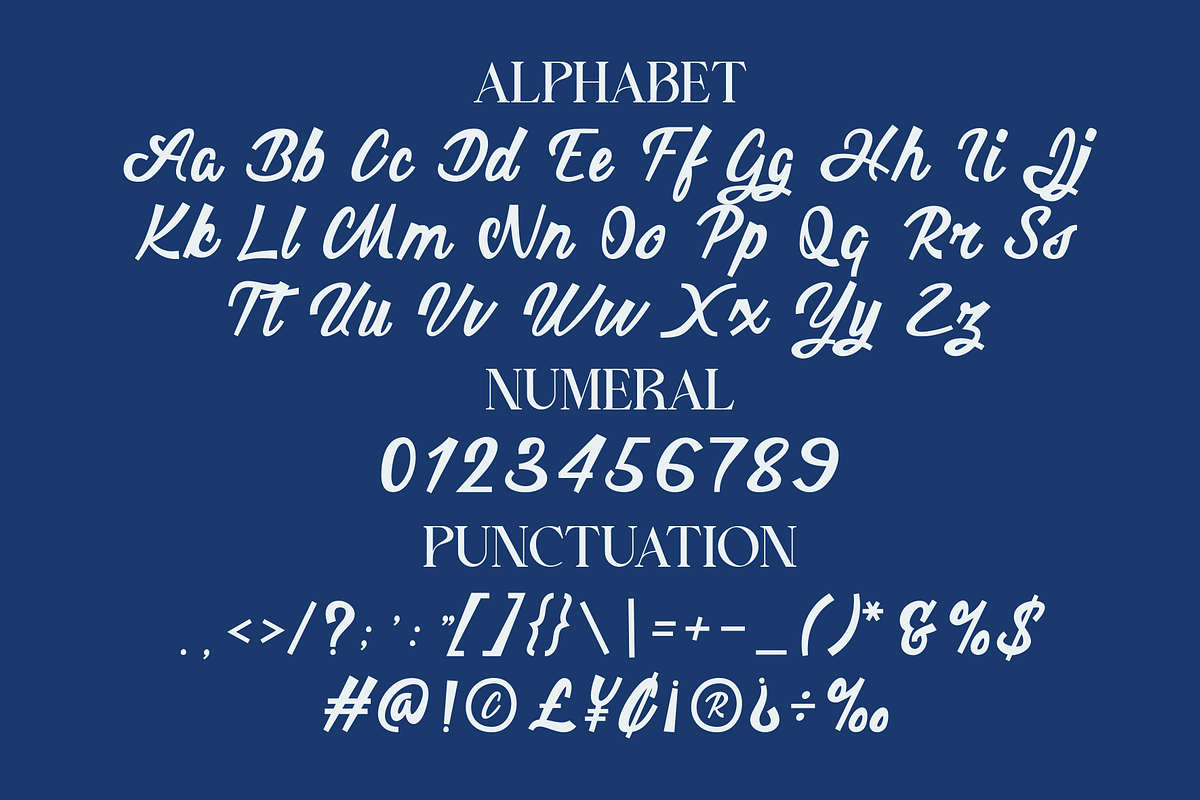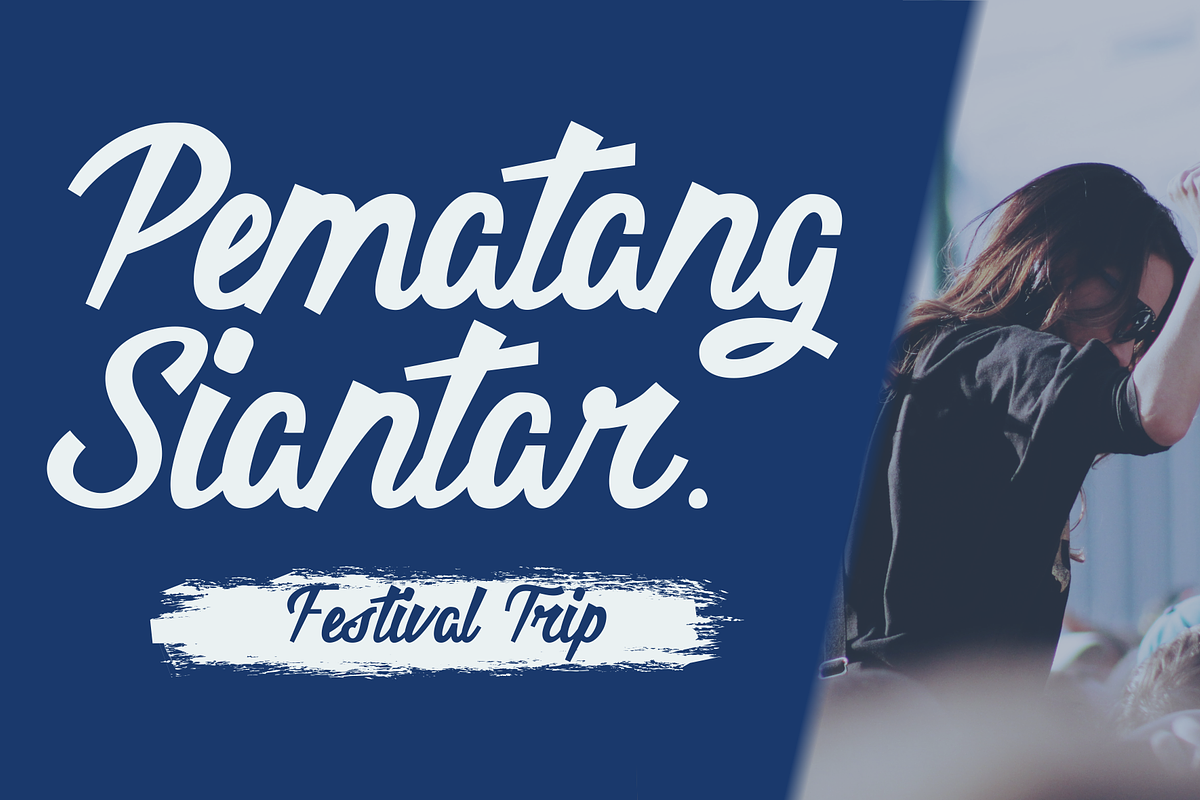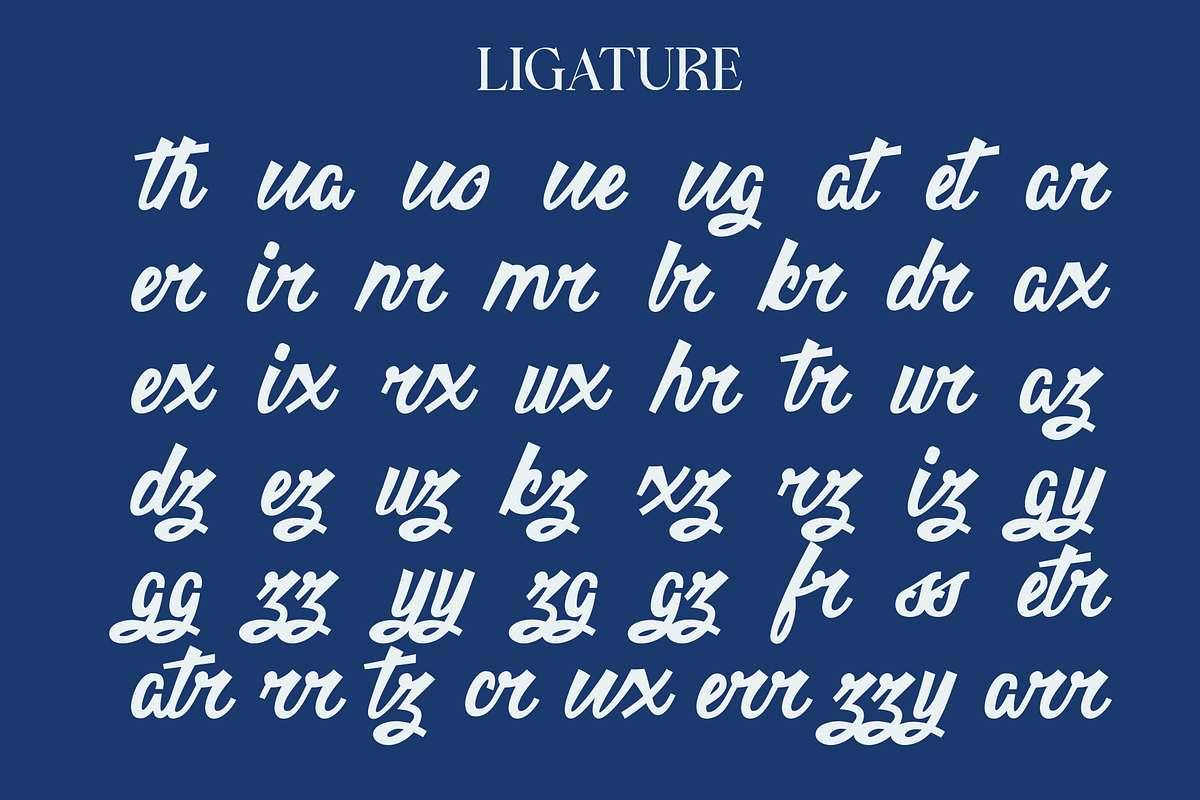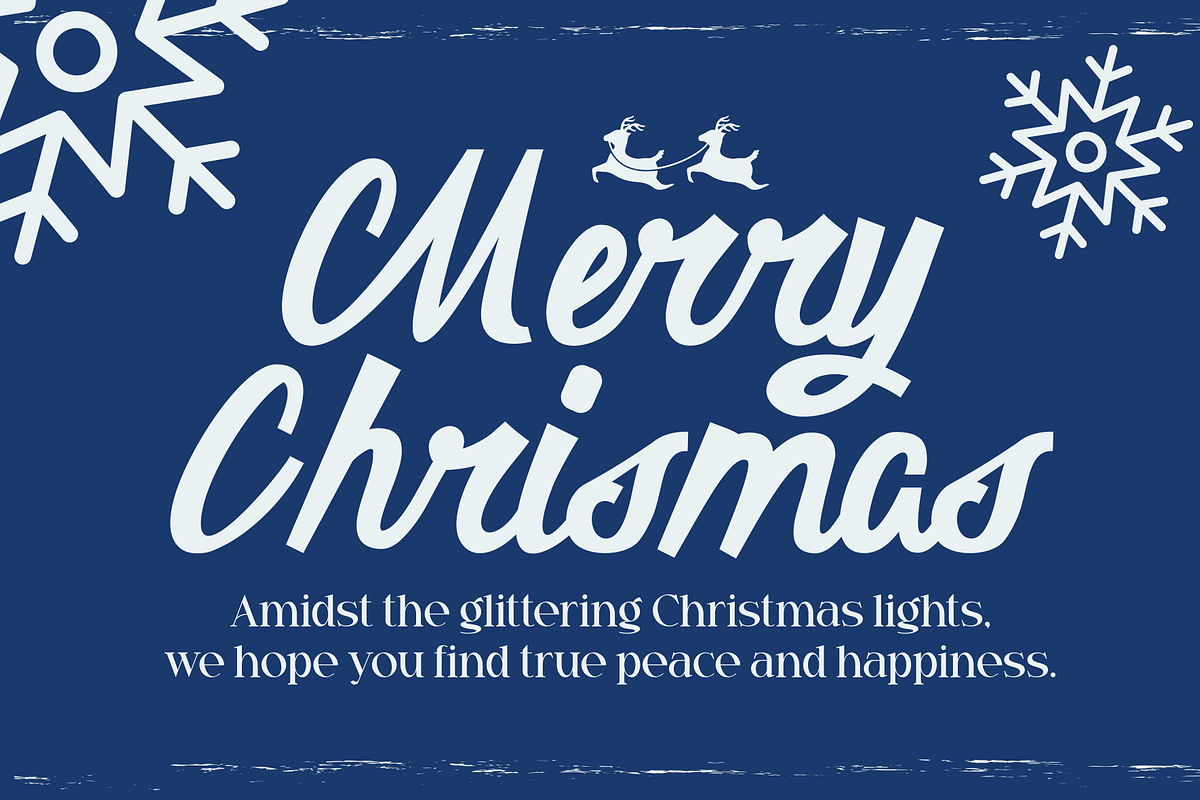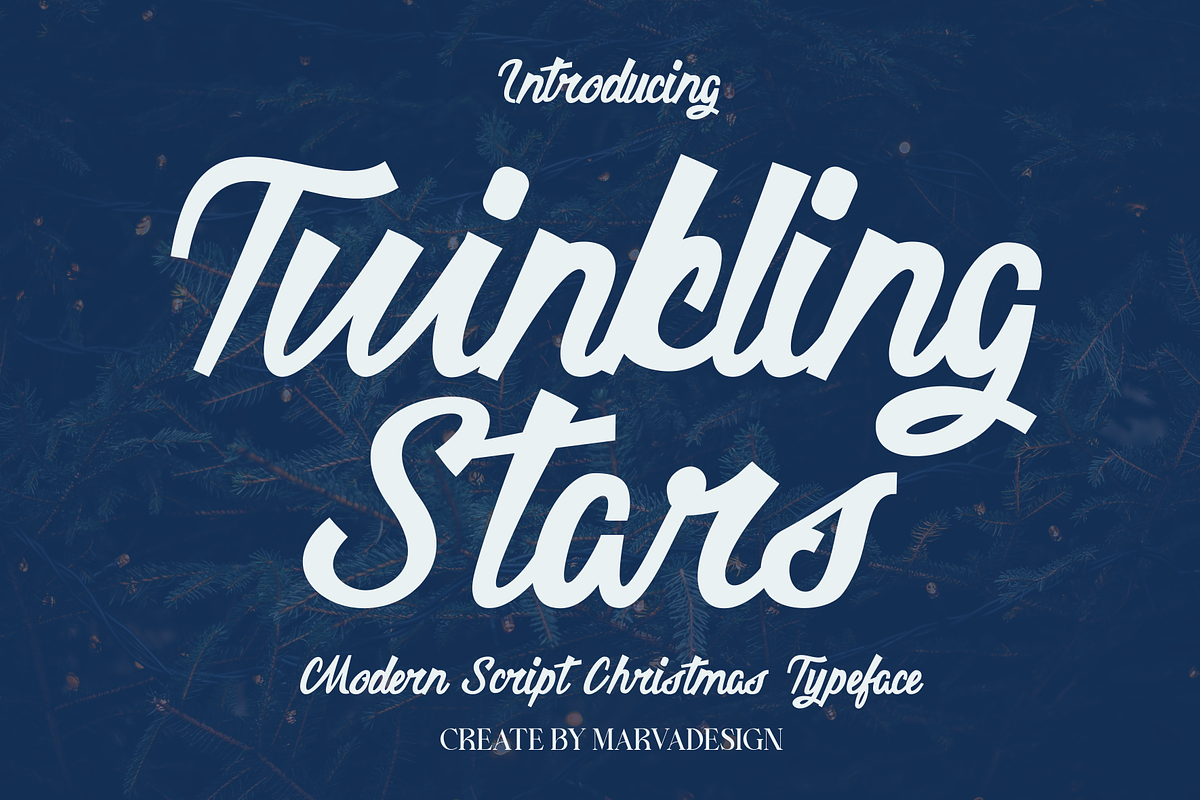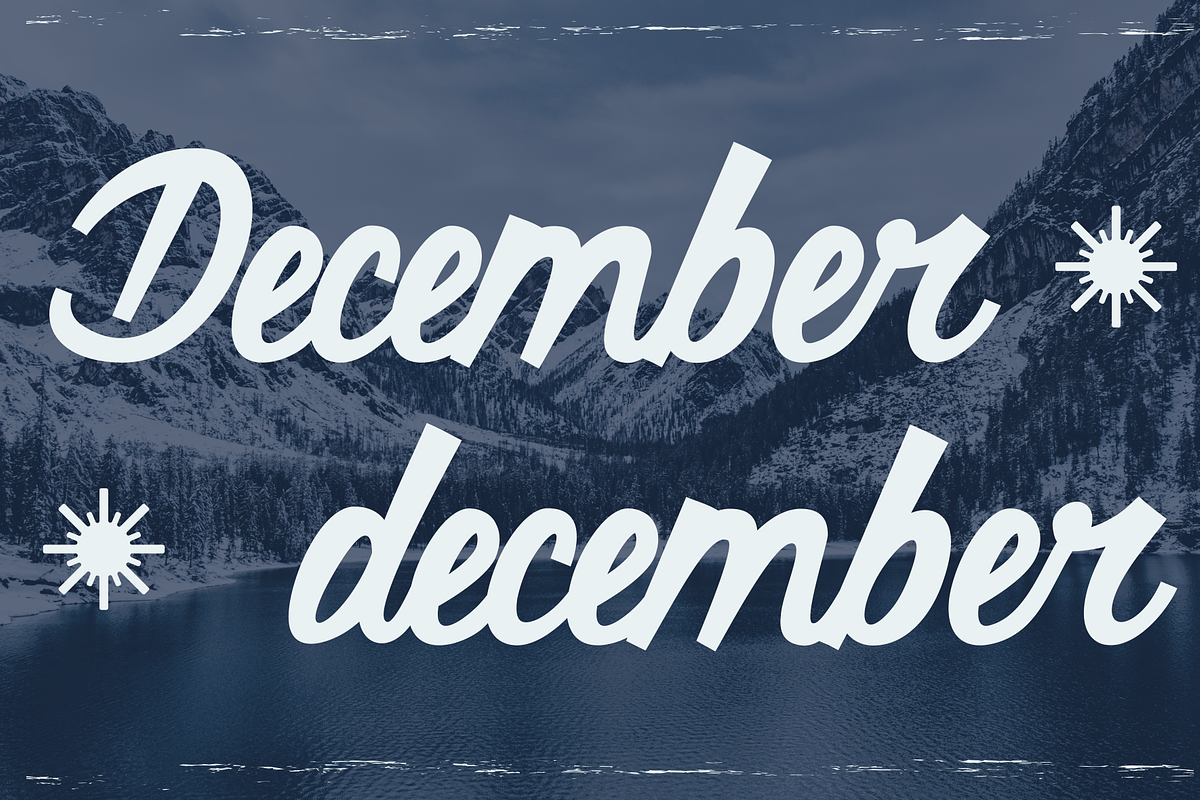
Twinkling Stars - A Modern Script Ch
Introducing our new product Twinkling Stars Font -Modern Script And Handwritten Font Twinkling Stars Font - Modern Script And Handwritten Font authentic display font. The font is suitable for any branding project like logo, Template Design, Product and many more. outstanding in a wide range of contexts.